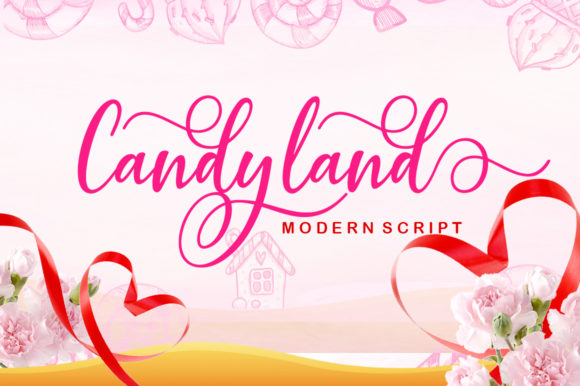
The Sweet Charm of Candyland Font: A Designer’s Delight
I’ll never forget the moment I stumbled upon the perfect font for a whimsical wedding invitation project. I had been scrolling through font after font, trying to find that one magical script that would bring the client’s vision to life. And then, I saw it – Candyland Font. Its bold swashes and modern elegance stole my heart, and I knew I had found the one. In this article, I’ll share my love for this stunning script font, its features, and how to make the most of it in your designs.
- ✨ Stunning swashes: The bold swashes in Candyland Font add a touch of elegance and sophistication to any design.
- ✅ Modern feel: The font’s clean lines and curves give it a fresh, modern look that’s perfect for a variety of design projects.
- 🎉 Versatility: Candyland Font is suitable for a range of designs, from wedding invitations and branding to packaging and advertising.
While Candyland Font is an amazing addition to any design project, there are a few things to keep in mind:
- 🤔 Legibility at small sizes: As with many script fonts, Candyland Font can become a bit tricky to read at very small sizes. Make sure to test it in your design to ensure it’s legible.
- ⚠️ Overuse of swashes: While the swashes are beautiful, overusing them can make your design look cluttered. Balance is key when working with this font.
A Practical Guide: Using Candyland Font in Your Designs
The Story Behind Candyland Font
Candyland Font was inspired by the classic children’s board game, Candy Land. The font’s designer wanted to capture the game’s whimsical and fantastical feel in a modern script font. The result is a beautiful, elegant font that’s perfect for a variety of design projects.
Q: Is Candyland Font suitable for body text?
A: While Candyland Font is beautiful, it’s not ideal for body text. Its elegant swashes and script style make it better suited for headings and titles.